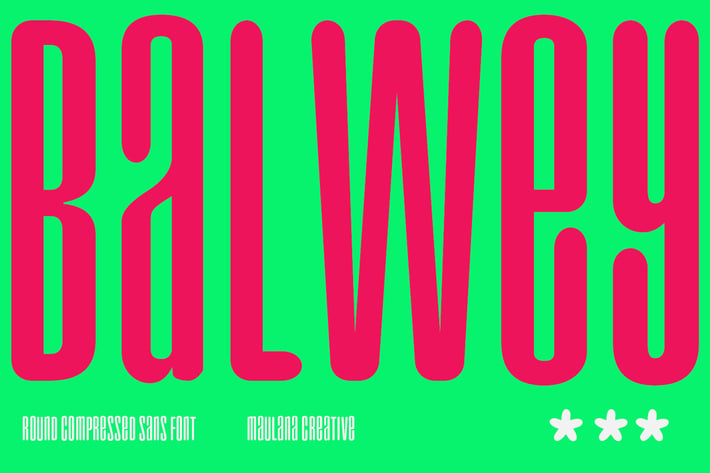
Balwey Sans Display Font
Balwey is a Compressed round sans serif Display font. Bold stroke, fun character with a bit of ligatures and alternates. To give you an extra creative work. Balwey font support multilingual more than 100+ language. This font is good for logo design, Social media, Movie Titles, Books Titles, a short text even a long text letter and good for your secondary text font with script or serif. Make a stunning work with Balwey font.